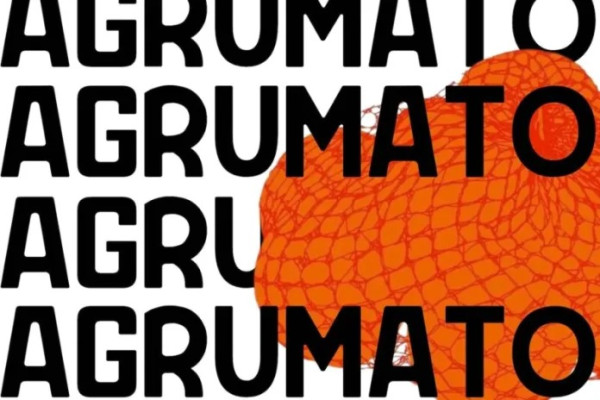
Agrumato Font
Agrumato Font is made, Very characterful, sturdy and sturdy, it is the best choice for editorial, world name or brand design, with firm and charismatic shape, hammer head will be the best choice for you
Agrumato Font is perfect for making logo designs, badges, packaging, posters, t-shirt designs and more. fonts give a vintage feel to your design.